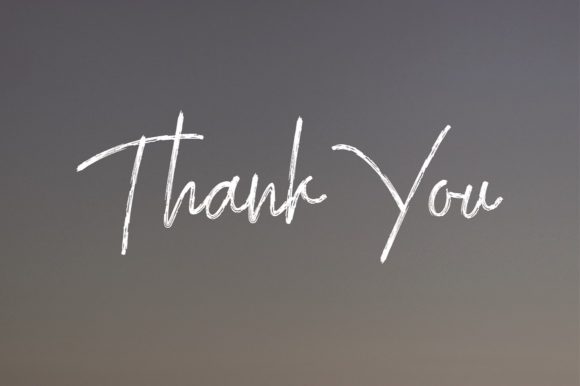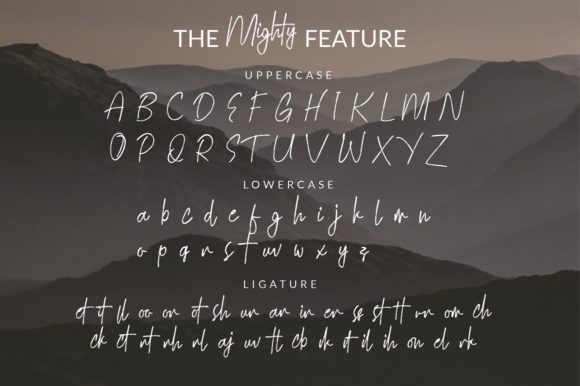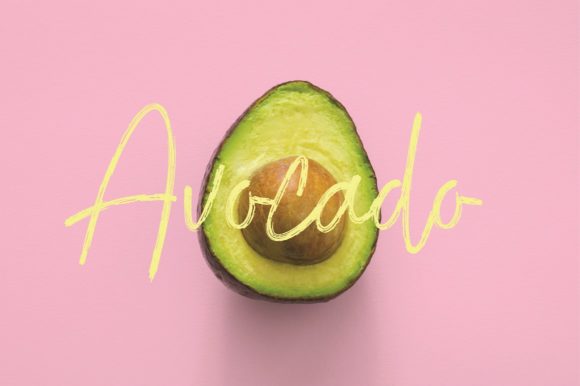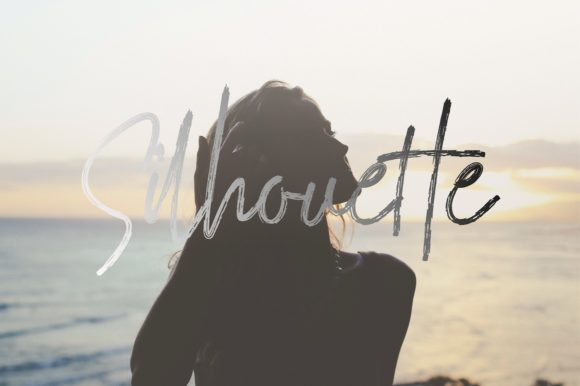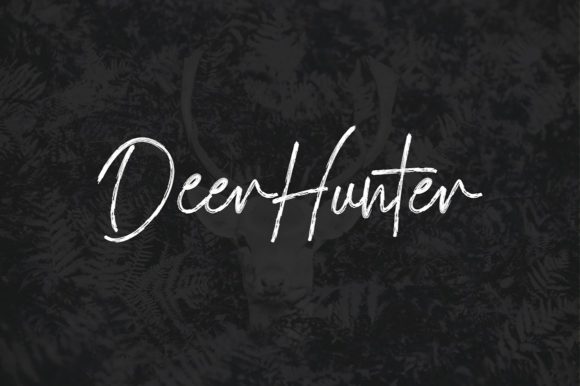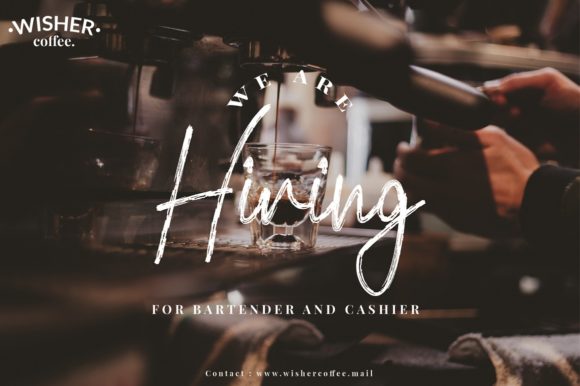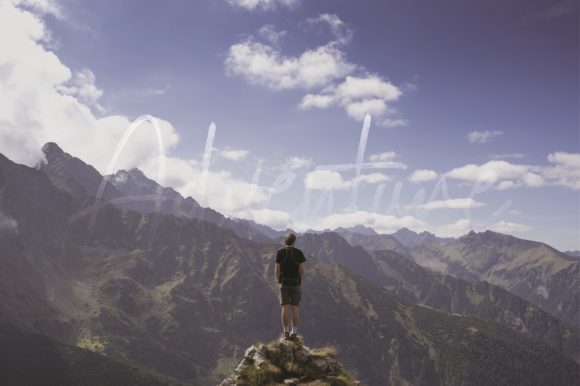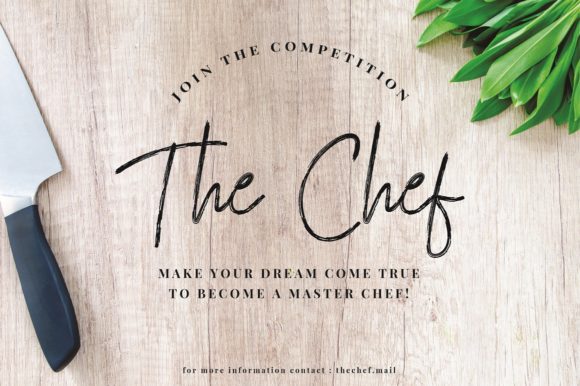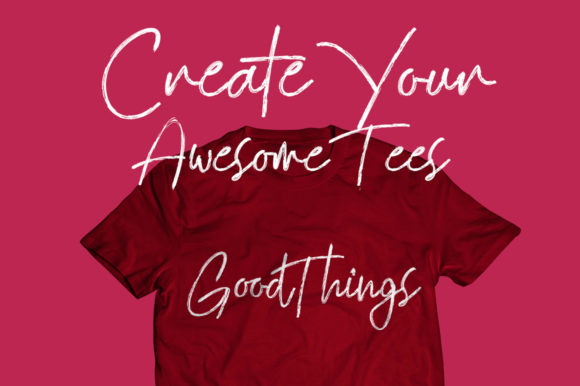
Mighty Font
About Mighty Font
Mighty is a beautifully textured handwritten font with a wealthy feel. It’s a sensational font that will turn any design idea into a true standout.